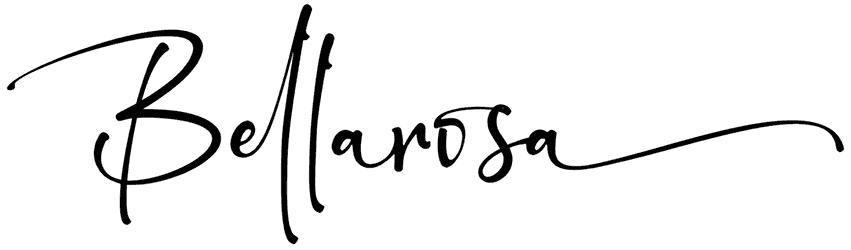
Magazines headers, fashion logos, decorative texts, headlines, and wedding invitations are some of the situations in which you need a font with such a delicacy to create a friendly vibe. Sweet Dream is a script font and with its unique style can create that feeling you want.
This font comes with an awesome collection of characters which contains the uppercase and lowercase of the alphabets, the numbers, and the punctuation marks.